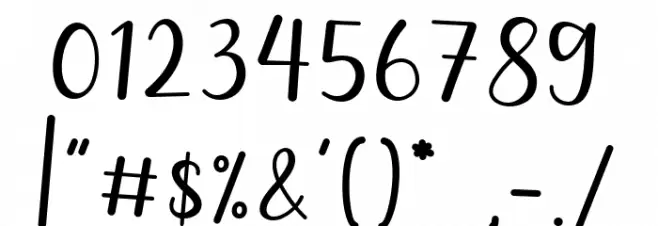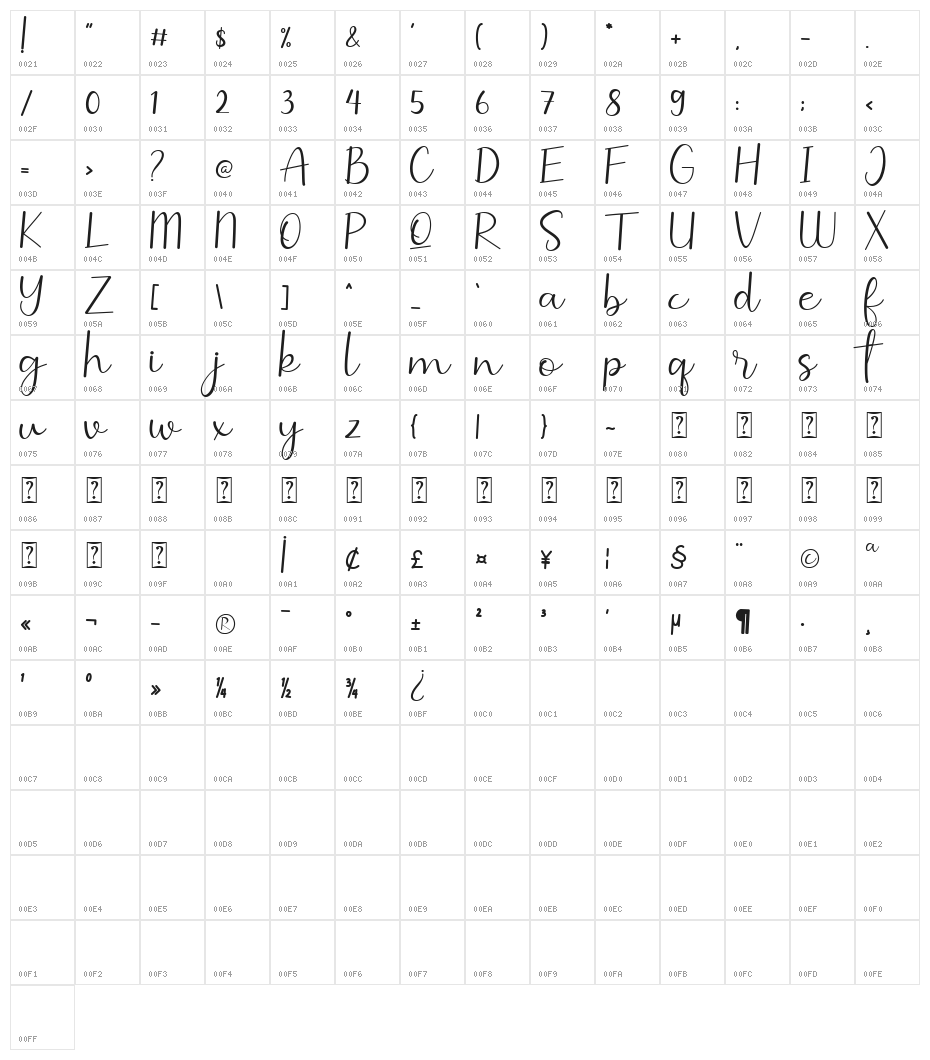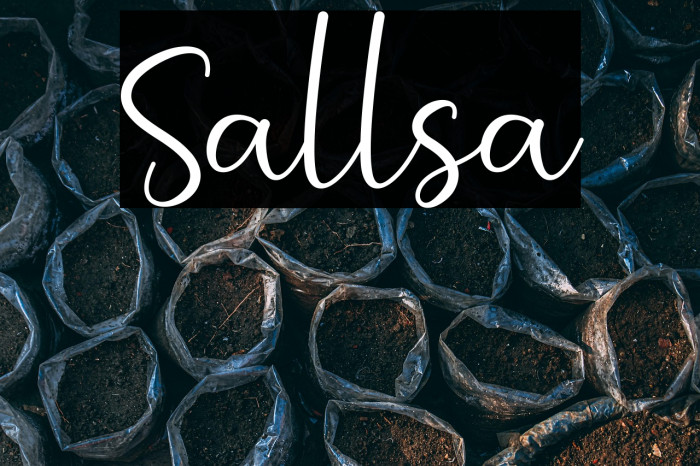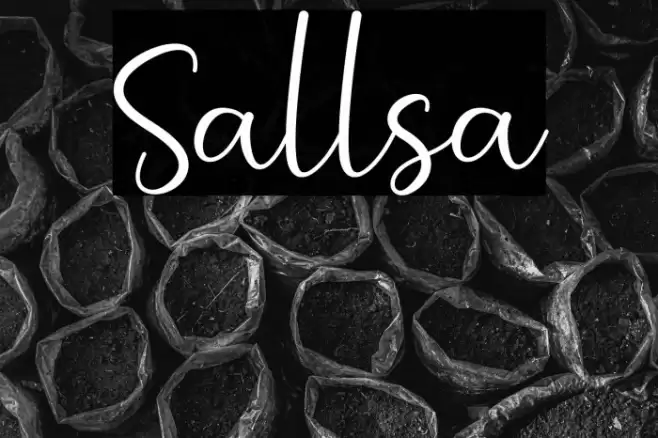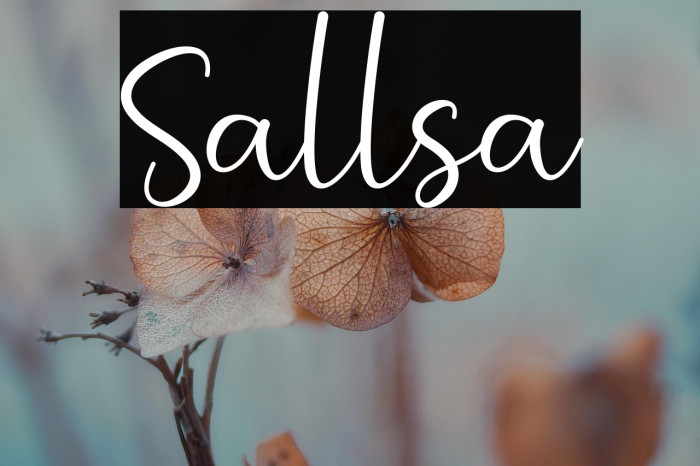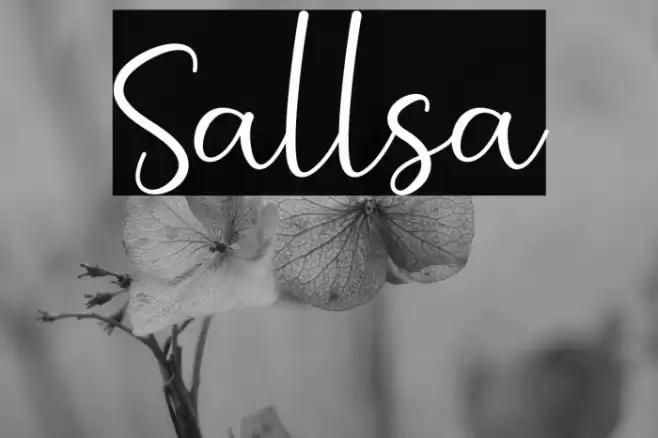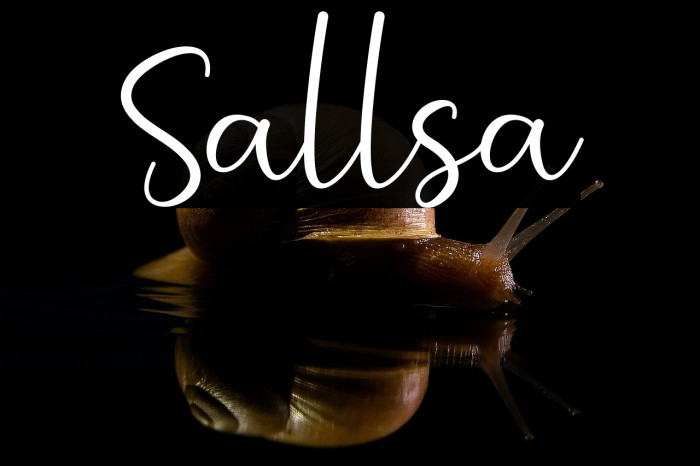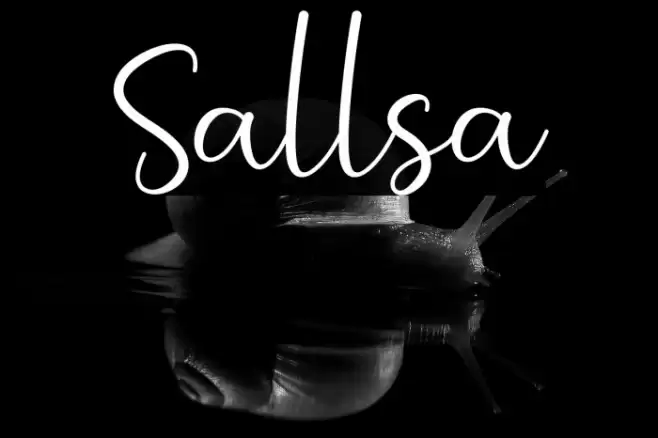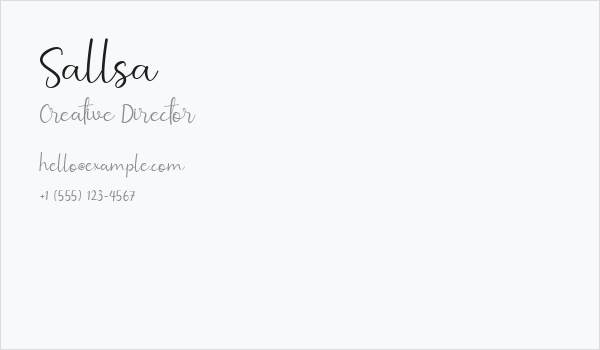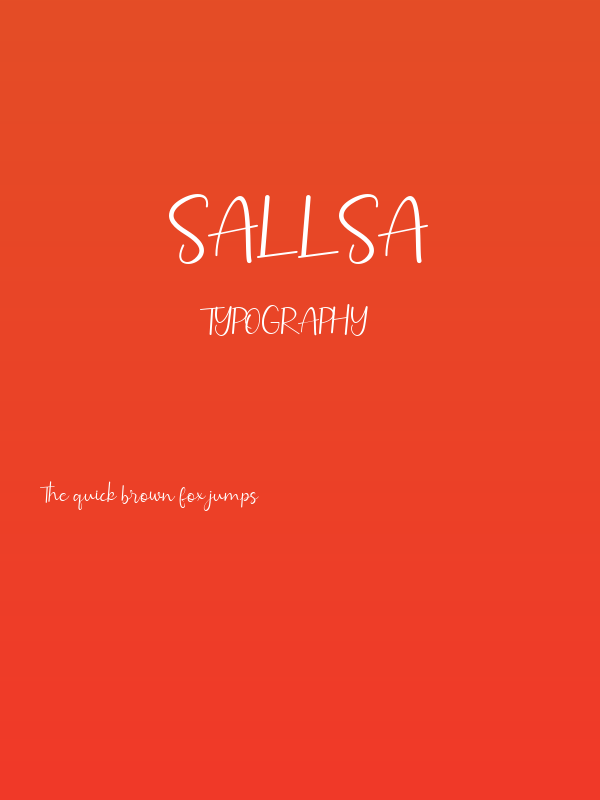
Sallsa Font
Sallsa Description
This font features a playful and casual handwritten style, characterized by its fluid and smooth curves. The uppercase letters are tall and slightly narrow, with a consistent stroke width that gives a clean and modern appearance. The lowercase letters are more rounded and connected, adding a touch of elegance and flow. The numerals are bold and clear, maintaining the overall aesthetic of the font. Special characters are well-integrated, ensuring versatility in various design contexts. This font's informal yet stylish look makes it suitable for a wide range of creative projects.